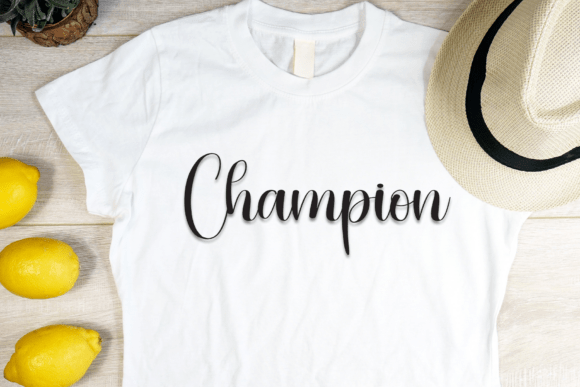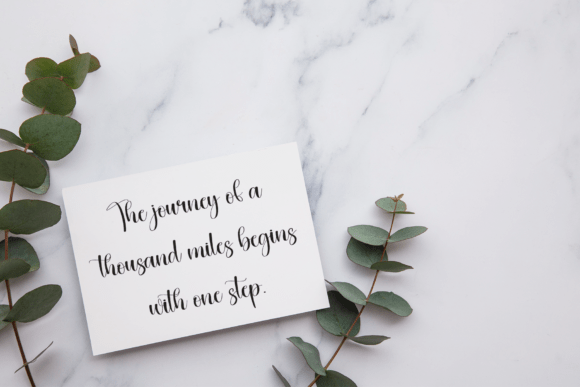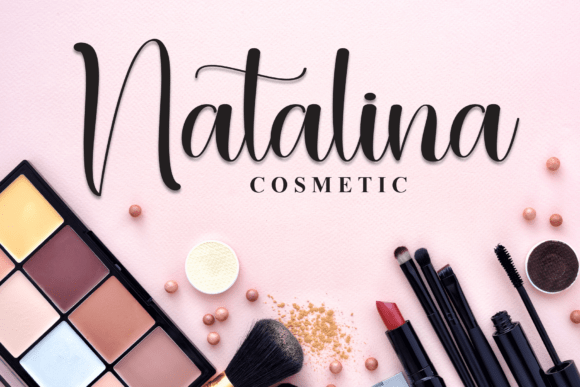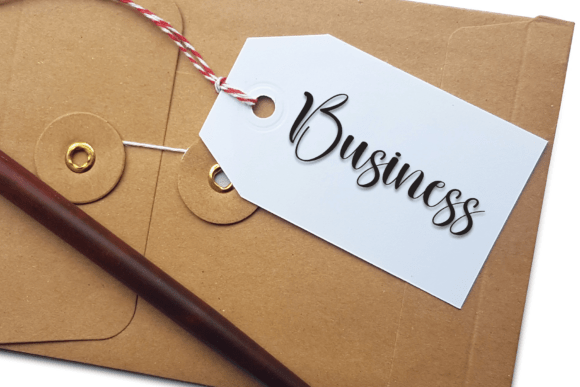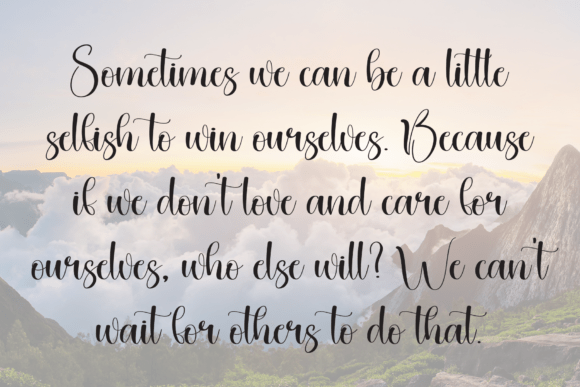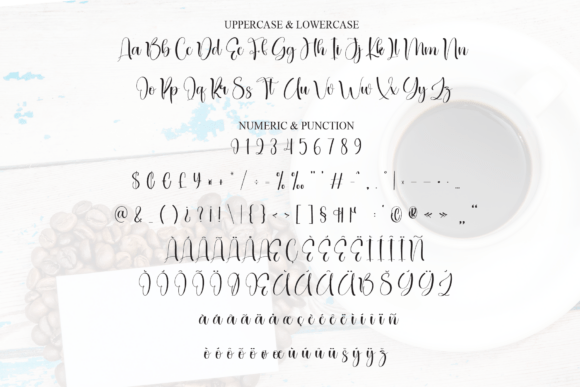
Coffee Lovers Font: Elevate Your Designs with Elegance and Sophistication
Are you a designer or crafter looking for a font that exudes luxury, romance, and sophistication? Look no further than the Coffee Lovers Font, a beautiful script font with swashes that will add a touch of elegance to your designs. With its flowing lines and beautiful beginning and ending swashes, this font is perfect for creating stunning visuals that will leave a lasting impression.
What is Coffee Lovers Font?
Coffee Lovers Font is a graceful, flowing script font that features beautiful swashes at the beginning and end of each letter. This elegant font is designed to add a touch of sophistication to your designs, making it perfect for a variety of projects, including wedding invitations, branding projects, social media graphics, and handwritten quotes.
Key Features of Coffee Lovers Font
- Elegant Script Font: Coffee Lovers Font features a beautiful, flowing script design that adds a touch of luxury to your designs.
- Swashes: The font includes beautiful beginning and ending swashes that add an extra flourish to your text.
- Romantic and Luxurious: The font’s elegant design makes it perfect for creating romantic and luxurious visuals.
- Versatile: Coffee Lovers Font can be used for a variety of projects, including wedding invitations, branding projects, social media graphics, and handwritten quotes.
Coffee Lovers Font is a must-have for designers and crafters who want to add a touch of sophistication to their designs. Whether you’re creating wedding invitations, branding projects, or social media graphics, this font is sure to impress. The font’s elegant design and swashes make it perfect for creating beautiful, eye-catching visuals that will leave a lasting impression.
Use Cases for Coffee Lovers Font
- Wedding Invitations: Add a touch of elegance to your wedding invitations with Coffee Lovers Font.
- Branding Projects: Use the font to create luxurious branding projects that will leave a lasting impression.
- Social Media Graphics: Add a touch of sophistication to your social media graphics with Coffee Lovers Font.
- Handwritten Quotes: Use the font to create beautiful, eye-catching handwritten quotes that will inspire and motivate.
Why Choose Coffee Lovers Font?
There are many reasons why you should choose Coffee Lovers Font for your design projects. Here are just a few:
- Unique and Elegant Design: The font’s unique and elegant design sets it apart from other script fonts.
- High-Quality: The font is high-quality and will look great in any design.
In conclusion, Coffee Lovers Font is a beautiful script font with swashes that will add a touch of sophistication to your designs. With its elegant design, beautiful swashes, and versatility, this font is perfect for designers and crafters who want to create stunning visuals. Whether you’re creating wedding invitations, branding projects, social media graphics, or handwritten quotes, Coffee Lovers Font is a must-have.